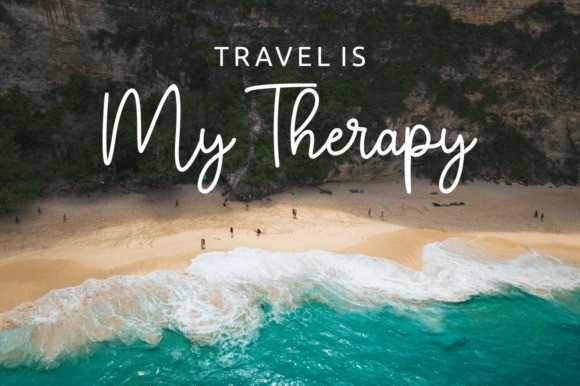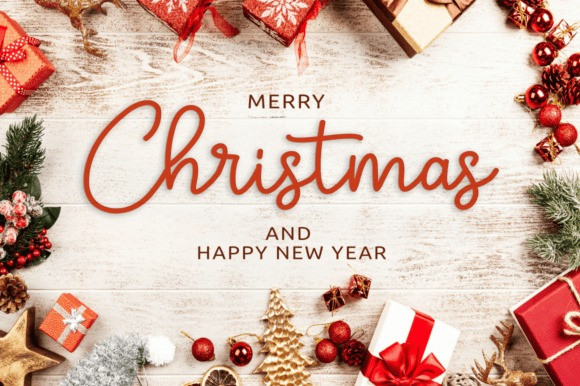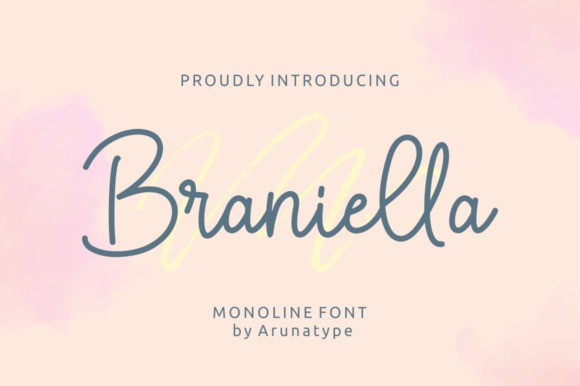
Braniella Script Font
Braniella Script Font is a dainty, flowing handwritten font. Sweet and playful, this font is great for logos, titles, posters, magazines, books, comics, or any creative design project.